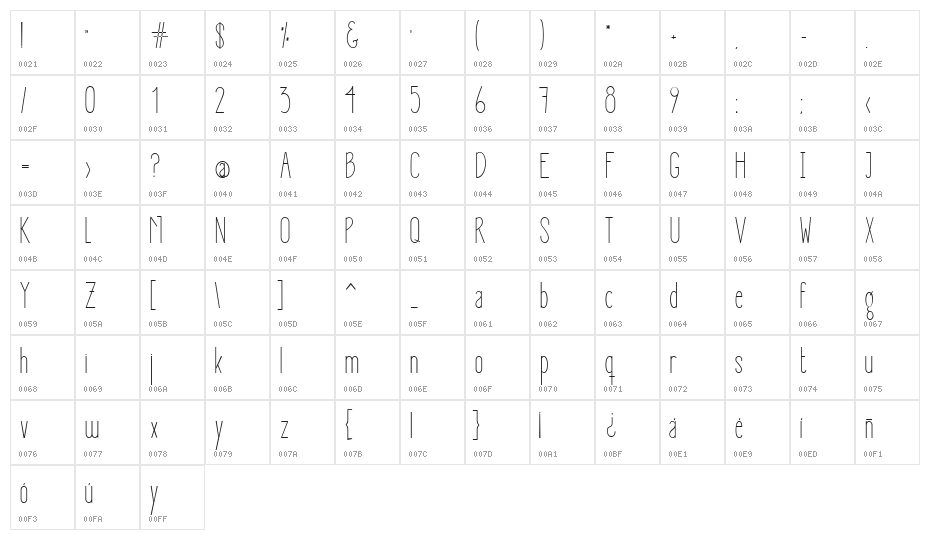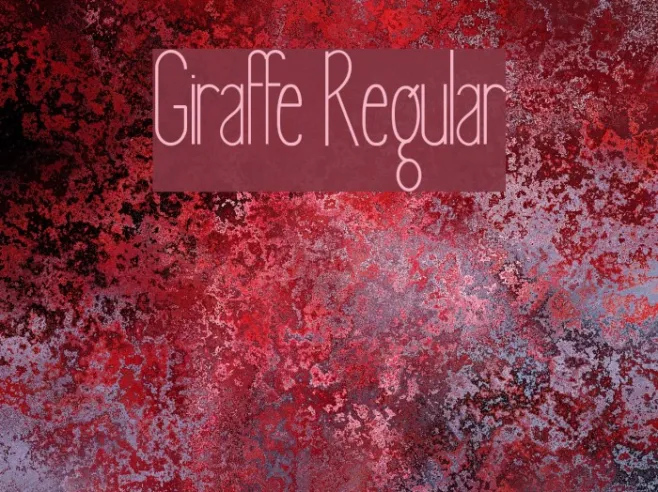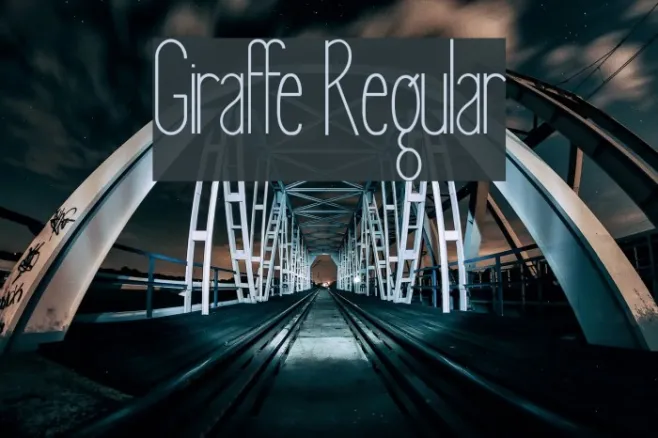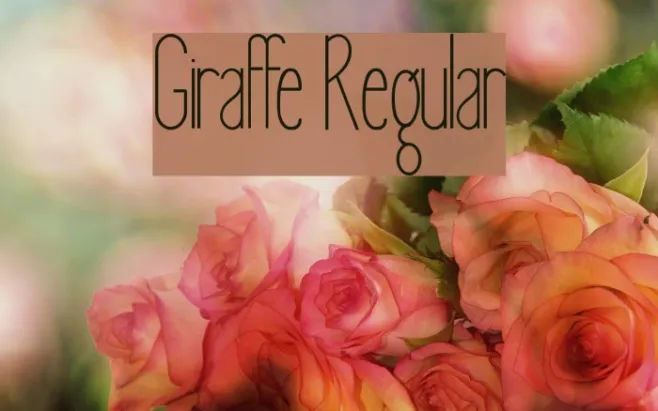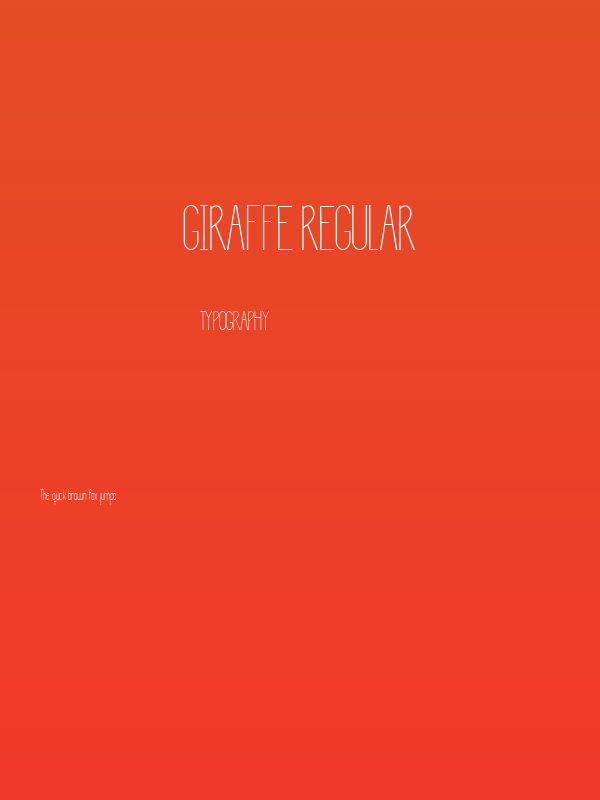
Giraffe Regular Font
Giraffe Regular Description
This font features a tall, slender design with elongated characters that give it a unique and elegant appearance. The uppercase and lowercase letters maintain a consistent height, contributing to a cohesive look. The numerals are similarly styled, with a modern touch that complements the overall aesthetic. Special characters are included, maintaining the same thin, elongated style. The font's clean lines and minimalistic design make it versatile for various applications, from digital to print media.
| Proposed Projects | Ideal for fashion magazines, modern branding, minimalist posters, and elegant invitations. |